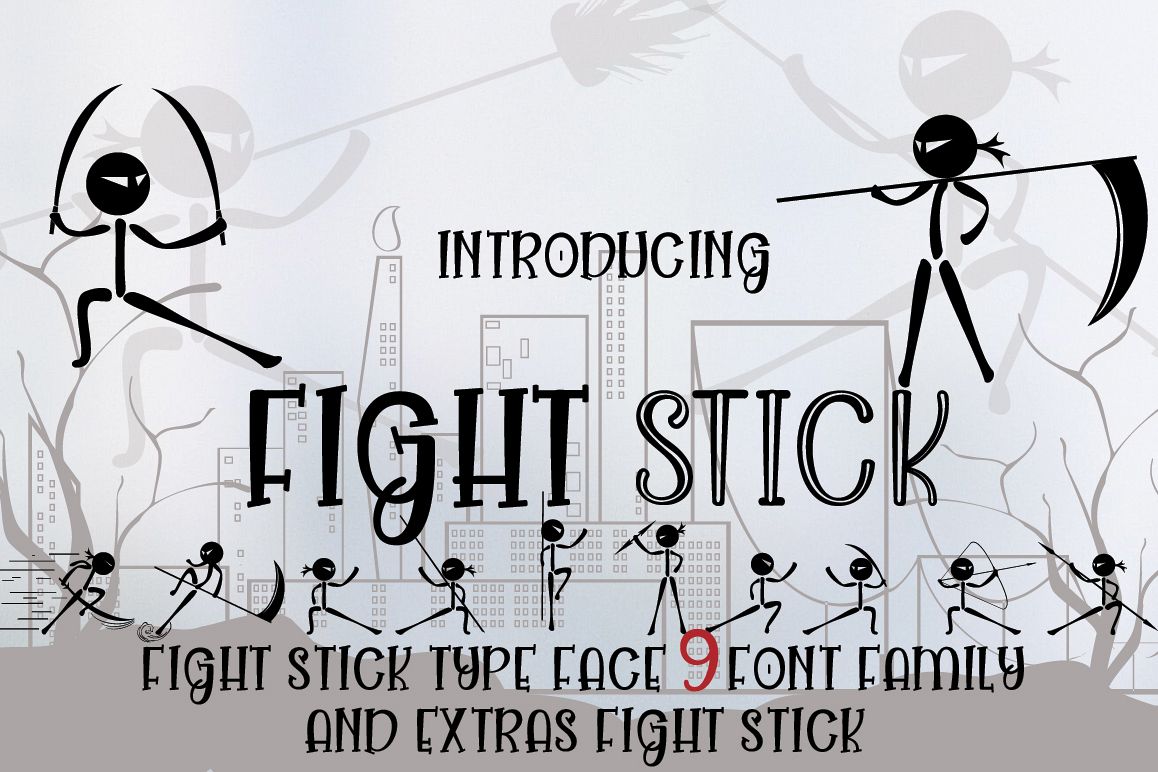
FIGHT STICK
FIGHT STICK  This font was designed by handwriting, and it has a modern
and unique forms of calligraphy, the writing style is very natural and multiple